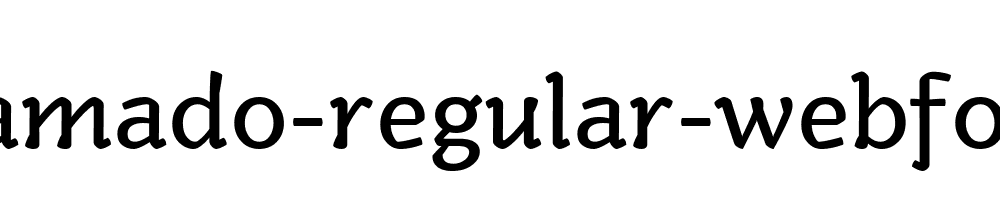
About kamado-regular-webfont
The kamado-regular-webfont has a unique structure with elegant apexes and smooth crossbars that give it a sophisticated look. The font features open counters and bilateral serif details that add a touch of classic elegance to its design. The stems are well-defined, with subtle spurs and finials that enhance its overall appearance. The font’s shoulder and arc create a gentle curve that exudes a friendly and approachable vibe, while its loops and links provide a touch of familiarity. With a warm and inviting feel, the kamado-regular-webfont strikes the perfect balance between being expressive and elegant, making it a versatile choice for a wide range of design projects. Overall, this font is a great choice for those looking to add a touch of sophistication with a hint of warmth to their designs.